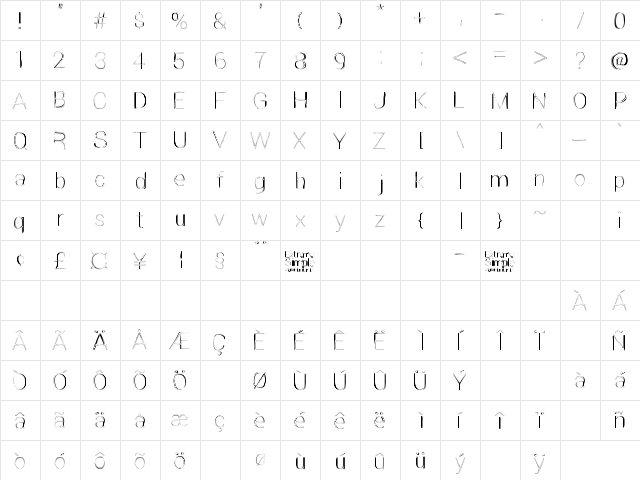
Extreme Simple Regular
| Designer | Woodcutter Manero |
Design Context for Extreme Simple Typeface
Extreme Simple takes a measured approach to typography — its balanced proportions and neutral character make it a reliable workhorse for both digital and print work.